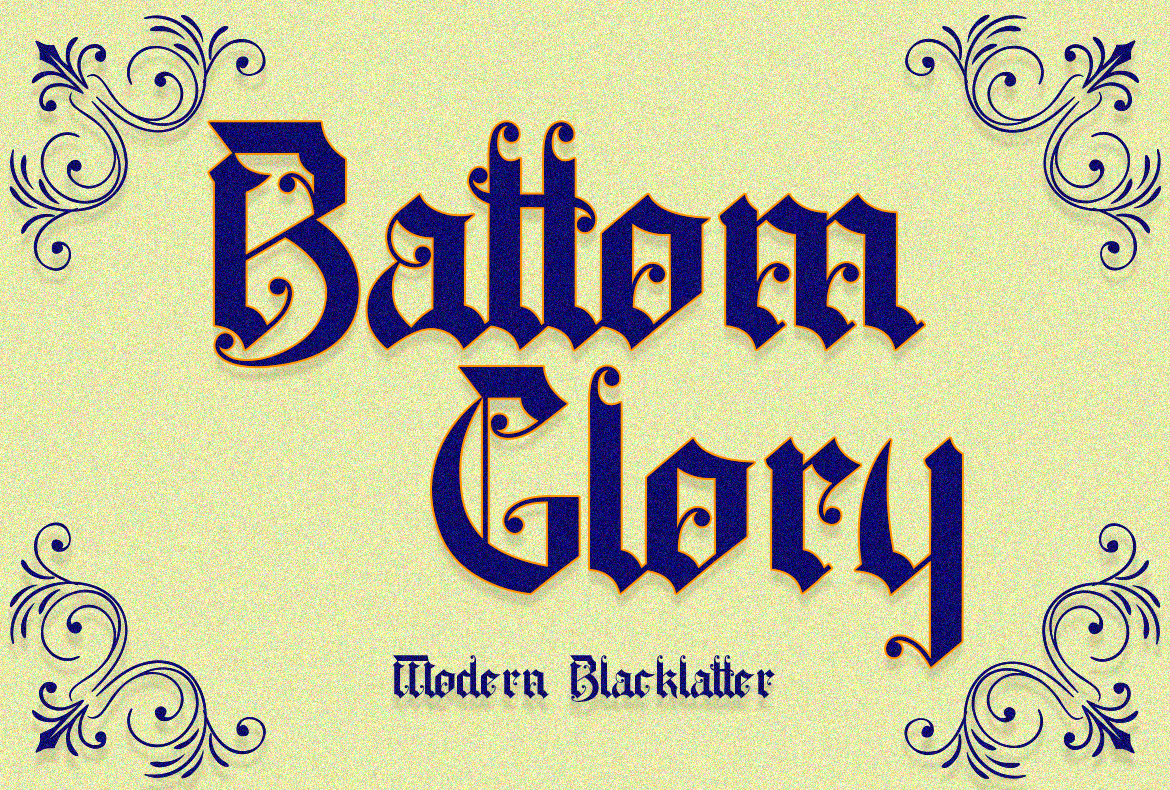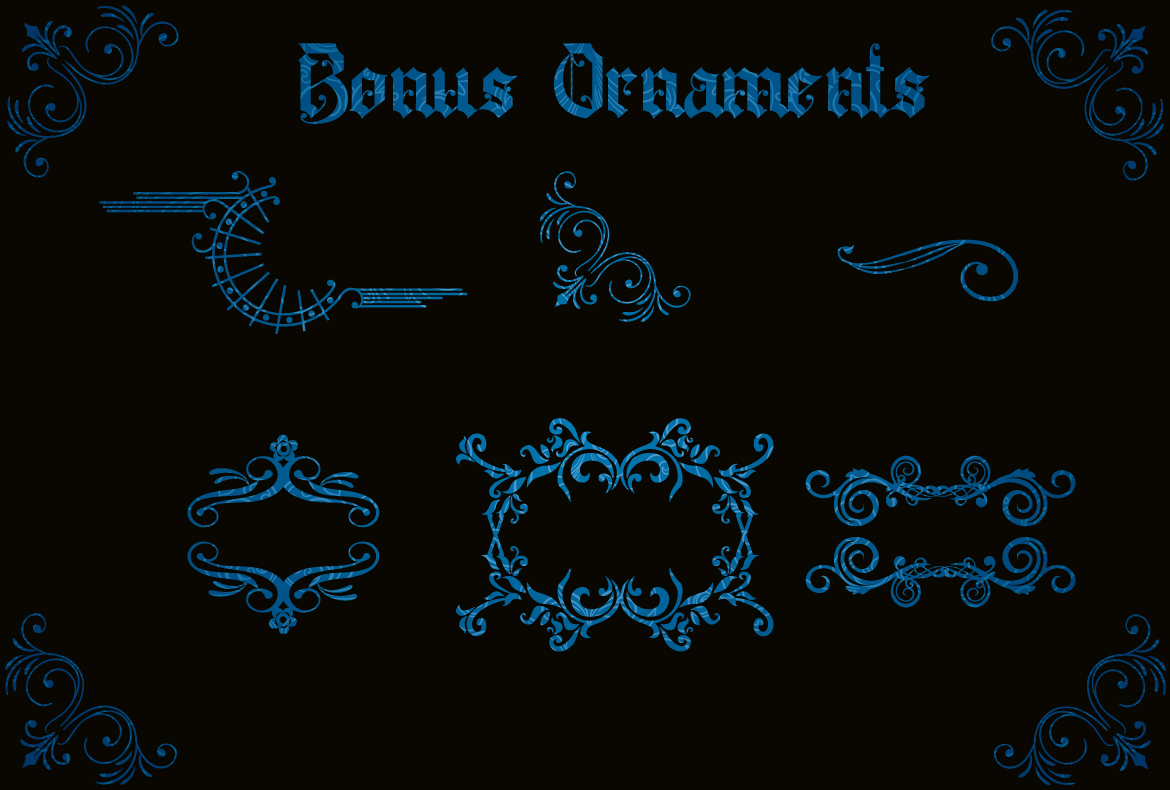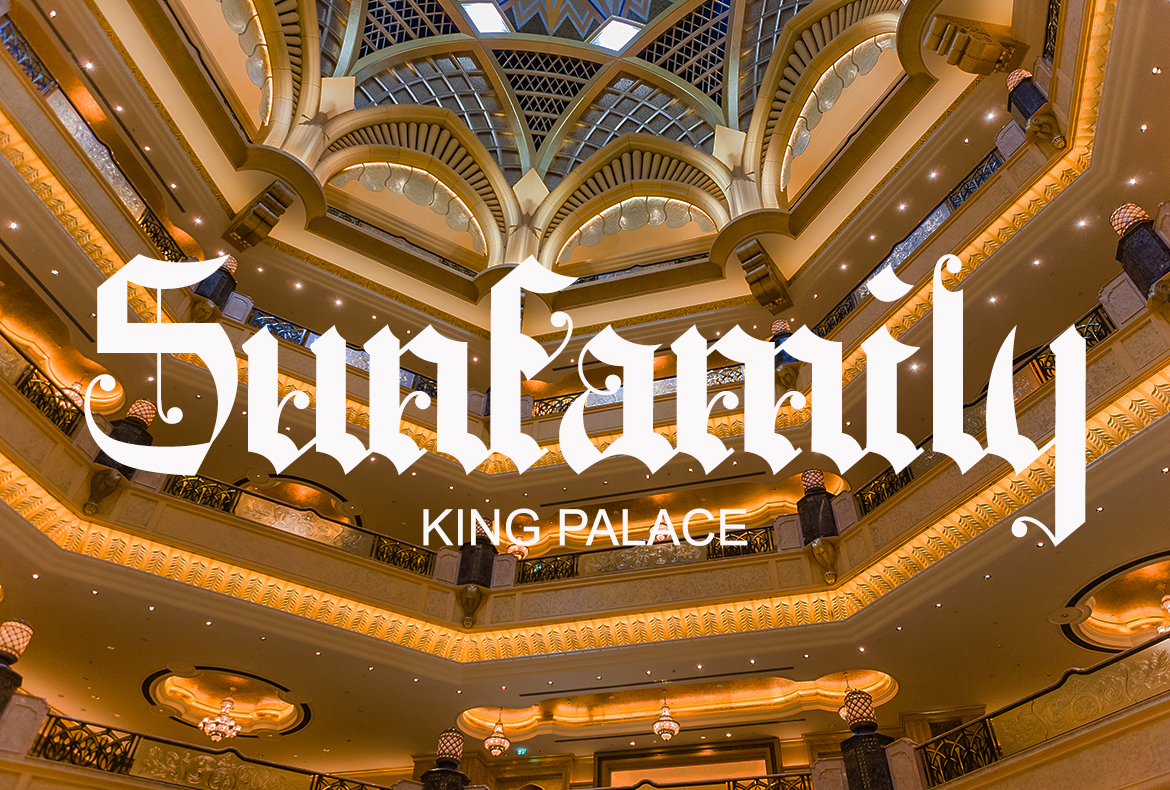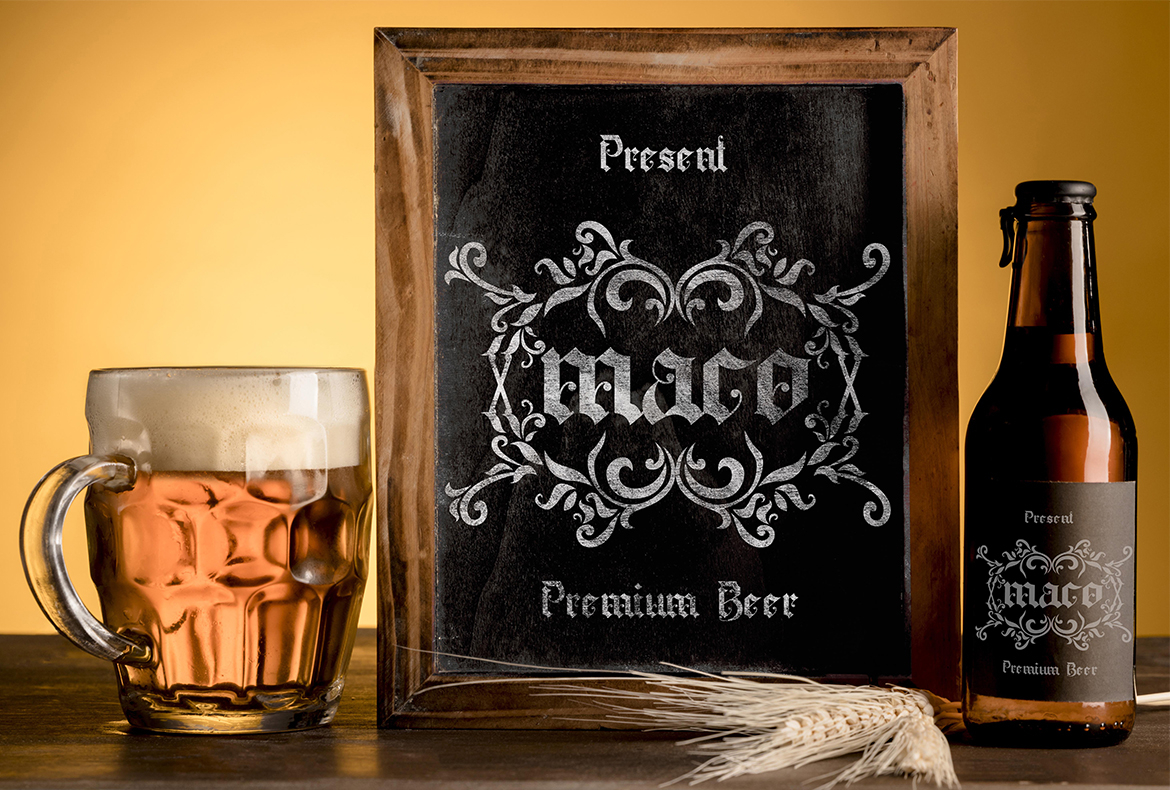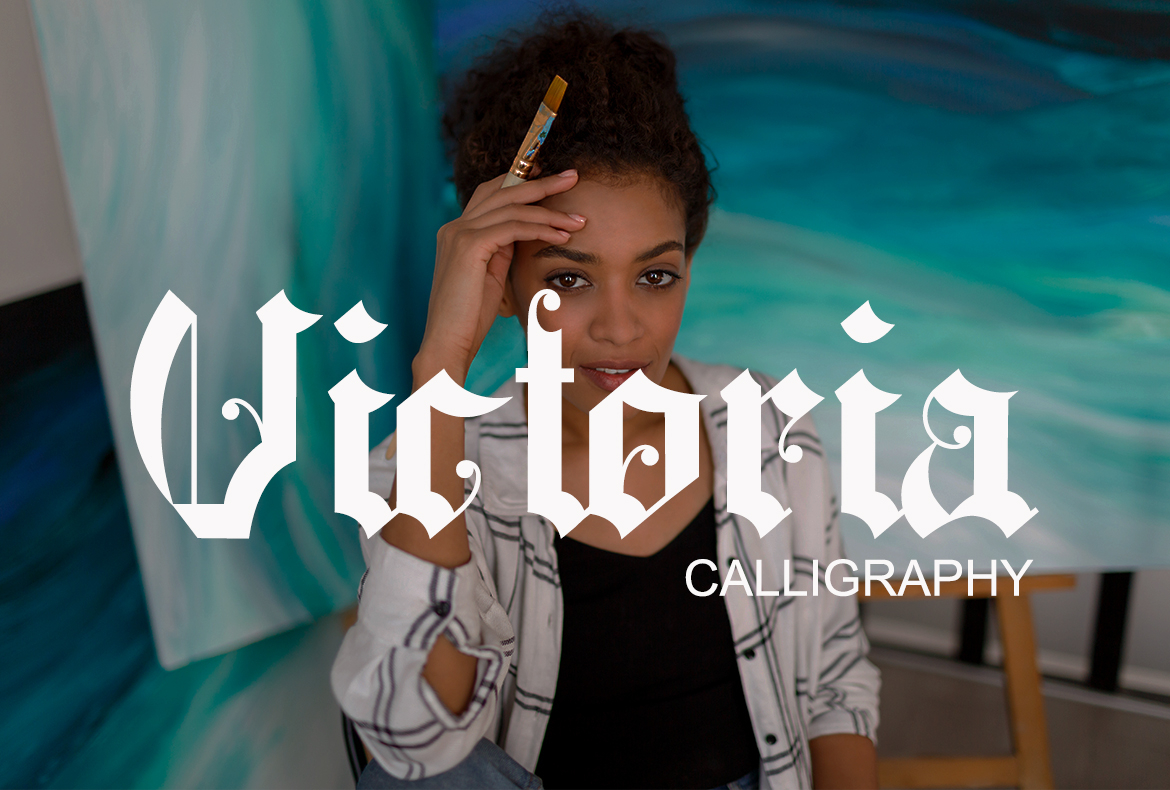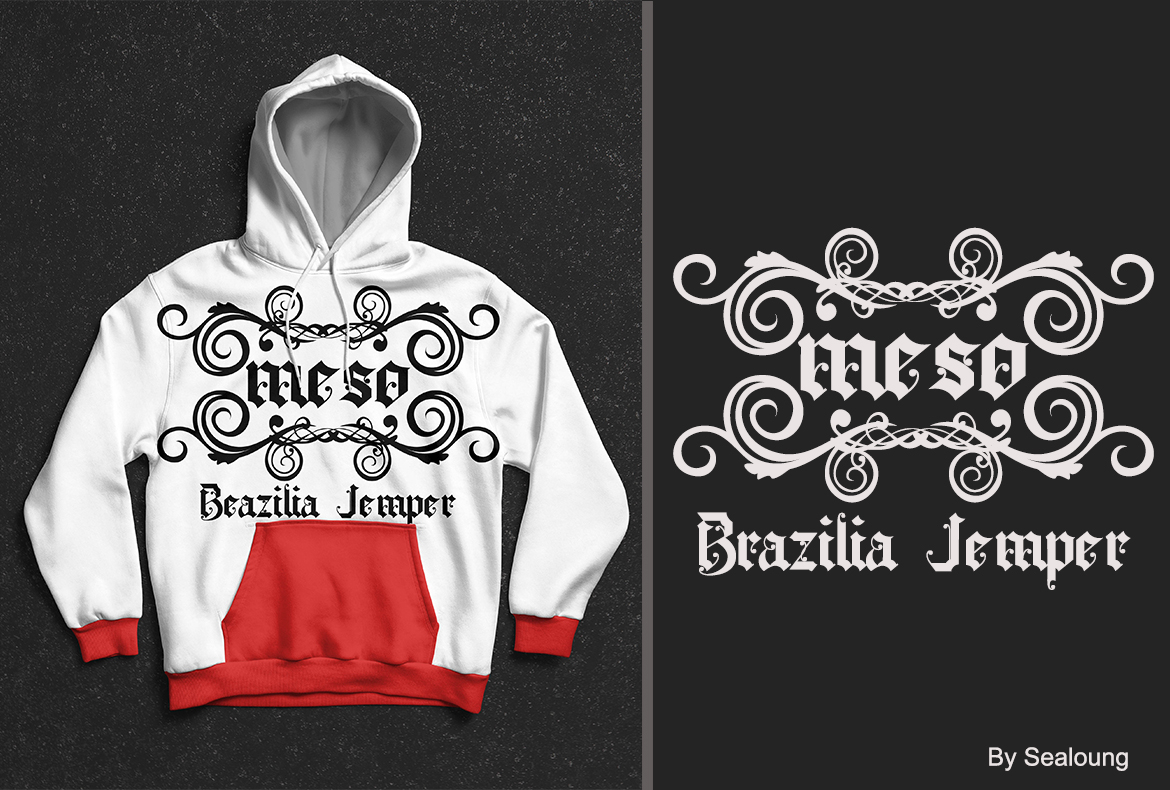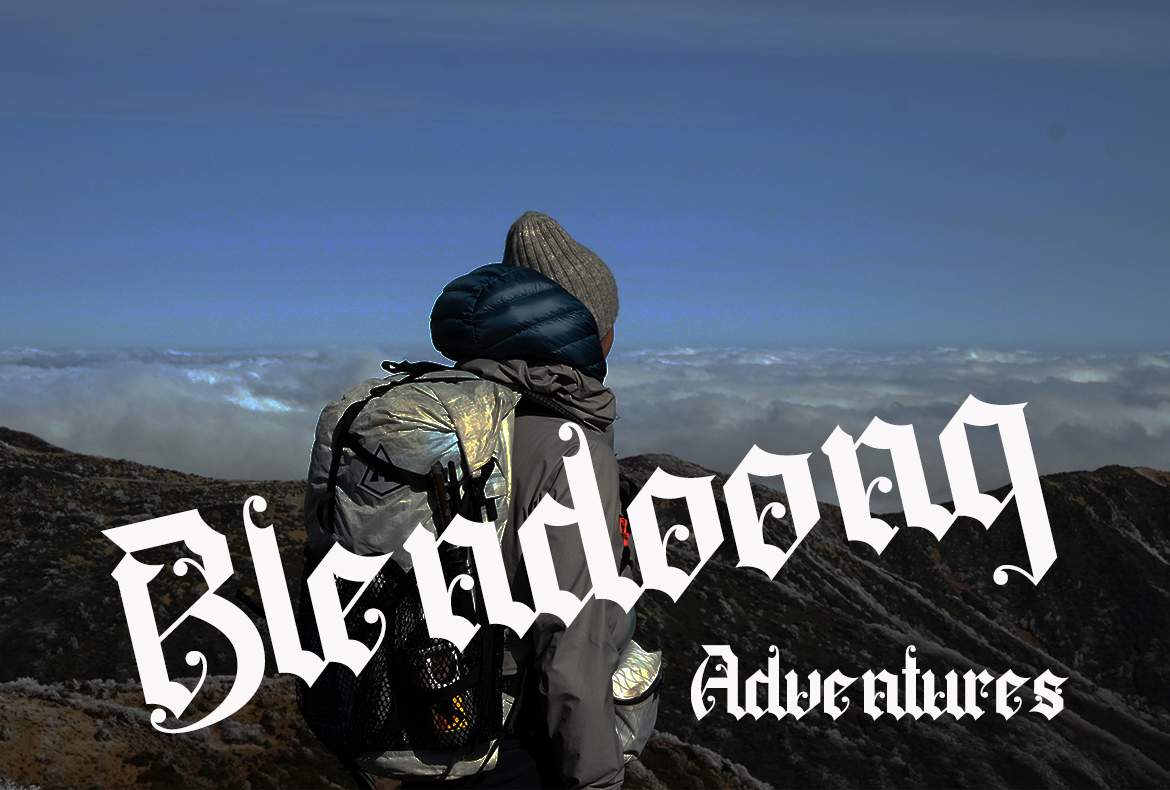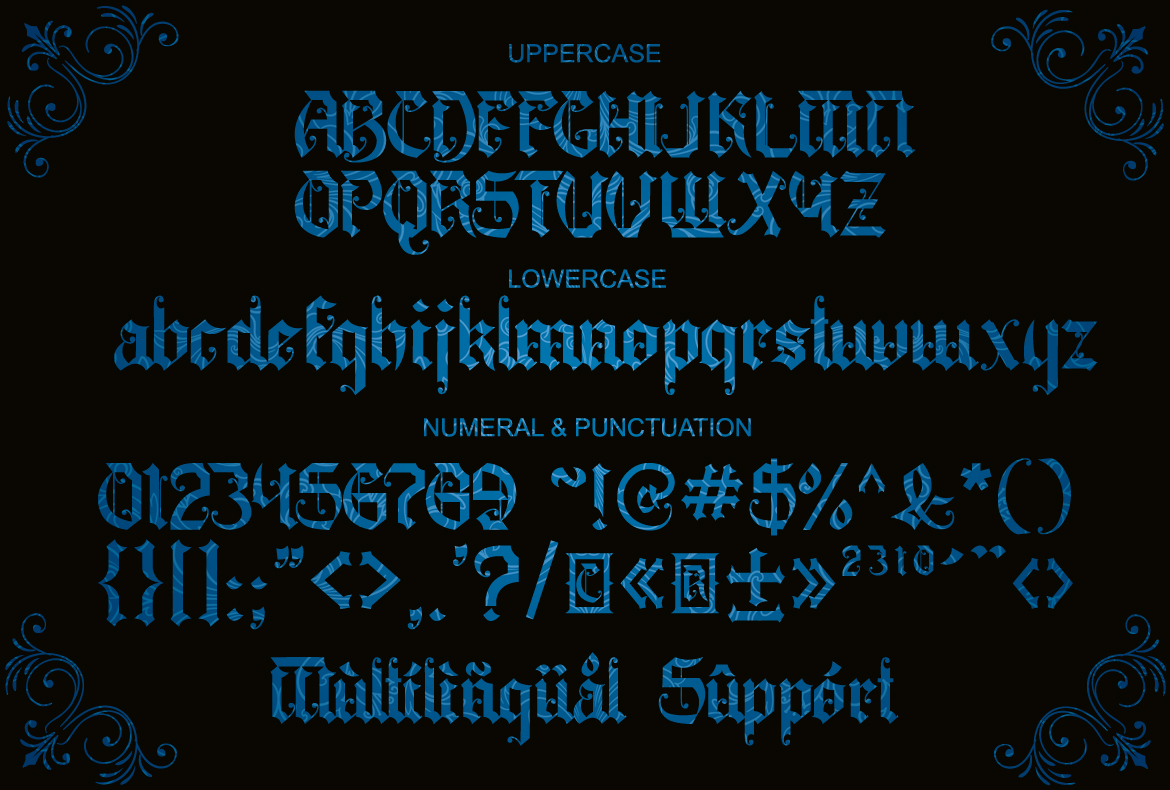
Battom Glory Font
About Battom Glory Font
Battom Glory is a bold and distinct blackletter font. Add this font to your creative ideas and notice how it will make them stand out!